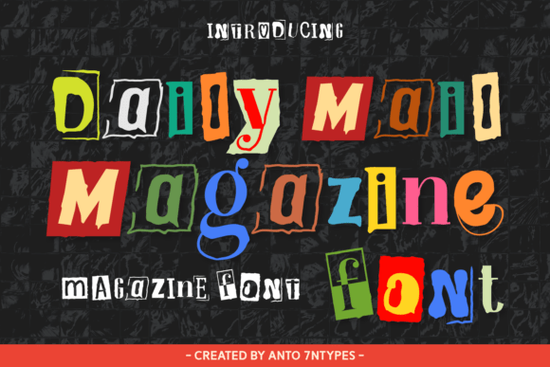
The Daily Mail Magazine font is a unique typeface that brings a vintage, handcrafted feel to any design project. With its intricate details and dynamic style, this font captures the essence of old-fashioned magazine cutouts and ransom letters. Whether you're working on a book cover, branding material, or social media content, the Daily Mail Magazine font adds a touch of nostalgia and personality that stands out.
Designed for those who appreciate retro aesthetics, the Daily Mail Magazine font blends authenticity with modern usability. Its bold, expressive letters make it ideal for headlines, logos, and eye-catching visuals. The font’s handmade characteristics give each letter a distinct personality, making it perfect for creative projects that need a personal touch.
What Makes the Daily Mail Magazine Font Unique?
The Daily Mail Magazine font isn’t just another display typeface it’s a statement. Its design draws inspiration from vintage typography, offering a look that feels both familiar and fresh. The font’s swash elements and detailed strokes add a sense of movement and energy, making it ideal for projects that need visual impact.
One of the standout features of this font is its versatility. It works well in both print and digital formats, making it a valuable addition to any designer’s toolkit. From packaging designs to website headers, the Daily Mail Magazine font can elevate your work without overwhelming it.
How Can You Use the Daily Mail Magazine Font?
This font is great for a variety of applications. For instance, it can be used to create striking book covers that grab attention. It also works well for branding projects, helping businesses stand out with a distinctive visual identity. If you’re designing for print or online magazines, the Daily Mail Magazine font can add a retro flair that complements your content.
For small businesses or print-on-demand sellers, this font offers a way to differentiate your products. Whether you’re printing t-shirts, creating social media graphics, or designing promotional materials, the Daily Mail Magazine font can bring a playful yet professional look to your work.
Why Choose This Font Over Others?
If you're looking for a font that combines style with functionality, the Daily Mail Magazine font is an excellent choice. Unlike more generic display fonts, this one has a clear personality and a strong visual identity. Its unique characteristics make it easy to recognize and remember, which is important for branding and marketing efforts.
Compared to other similar fonts, the Daily Mail Magazine font offers a more authentic feel. It doesn’t rely on overly complex shapes or excessive ornamentation. Instead, it uses clean lines and expressive details to create a design that feels both nostalgic and modern.
Whether you're a designer, crafter, or small business owner, the Daily Mail Magazine font is a valuable tool that can enhance your creative work. Its blend of vintage charm and modern usability makes it a versatile choice for a wide range of projects. Try it out and see how it can bring a new level of personality to your designs.